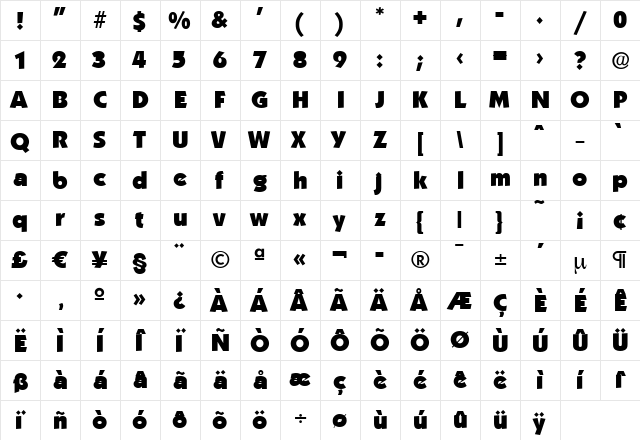
VictorBecker-Heavy Regular
Design Context for VictorBecker-Heavy Typeface
VictorBecker-Heavy takes a measured approach to typography — its balanced proportions and neutral character make it a reliable workhorse for both digital and print work.